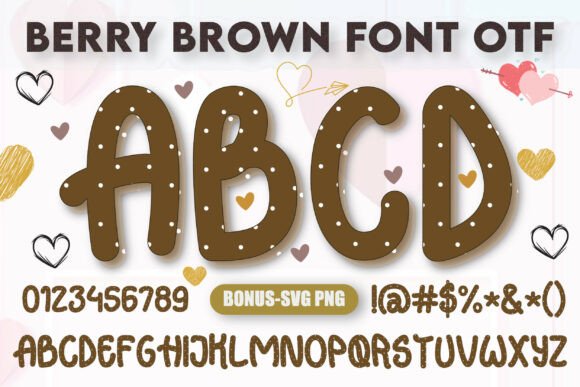
Berry Brown Font for Handmade Creators
As a handmade seller and printable product creator, I’ve found that the right font can make all the difference in how my products are perceived. Enter Berry Brown, a charming display font that brings warmth, playfulness, and charm to every design I create. With its soft curves and bubbly character, it’s perfect for adding personality without sacrificing readability.
The Charm of Berry Brown
Berry Brown is more than just a font—it’s a style statement. Designed with a cute and sweet aesthetic, it has a friendly feel that invites people to engage with your work. The gentle curves and rounded edges give it a hand-drawn look, making it ideal for projects that require a personal touch.
This font is especially great for those who want to blend cuteness with professionalism. Whether you're creating labels, invitations, or packaging, Berry Brown adds a warm, inviting vibe that resonates with both crafters and customers alike.
Practical Uses for Berry Brown
From handmade labels to wedding stationery, Berry Brown is incredibly versatile. Here are some practical ways to use it in your craft:
- Handmade Labels: Perfect for product tags, sticker sets, or small packaging.
- Invitations: Adds a whimsical yet elegant touch to birthday, baby shower, or event invitations.
- Wedding Stationery: Ideal for welcome signs, guest name tags, or thank-you notes.
- Wall Art: Use it for printable wall art, DIY decor, or custom home accents.
- Planner Pages: A great choice for journaling, bullet journals, or planner inserts.
- Product Packaging: Enhances the visual appeal of candles, soaps, or boutique goods.
- Seasonal Crafts: Works beautifully for holiday cards, seasonal tags, or festive signage.
Whether you're designing for a niche market or selling on platforms like Etsy, Berry Brown helps your brand stand out with its unique personality and approachable style.
Readability and Commercial Use
One of the key considerations when choosing a font for commercial use is readability. While Berry Brown is playful, it still maintains clarity, making it suitable for short phrases, names, and titles. However, for longer text, it's best used sparingly or paired with a more legible font.
When working with cutting machines like Cricut or Silhouette, ensure that your designs are optimized for small sizes. Test your mockups at actual print sizes to avoid any issues with legibility or scaling. Always preview your designs on different materials to ensure they look great in real life.
For product labels and stickers, consider using Berry Brown as the primary font for decorative elements while keeping essential information in a simpler, sans-serif typeface. This creates a balanced and professional look that appeals to a wide audience.
Font Pairing Ideas
To enhance your design layouts, consider pairing Berry Brown with complementary fonts. For example:
- Pair with a clean sans-serif font: For a modern and elegant look, combine Berry Brown with something like Montserrat or Open Sans.
- Pair with a bold script font: If you're aiming for a more expressive and artistic feel, pair it with a dramatic script like Great Vibes or Cinzel Decorative.
- Use it as a secondary font: Let Berry Brown shine in headlines or titles while using a more structured font for body text.
Experiment with different combinations to find what works best for your brand identity and target audience.
Final Thoughts
Incorporating Berry Brown into your creative workflow can elevate your designs and help your brand connect with customers on an emotional level. Its charm, versatility, and readability make it a valuable asset for any handmade creator or product designer looking to add a touch of warmth and personality to their work.